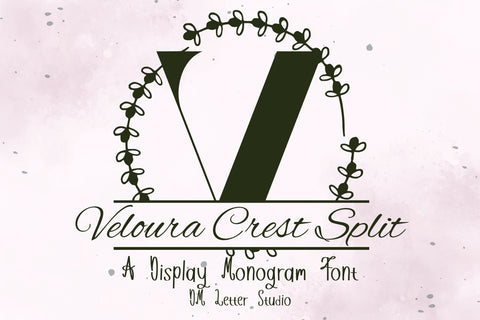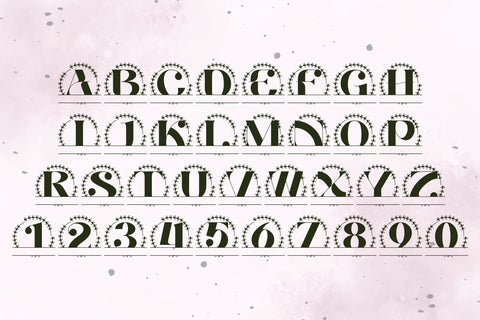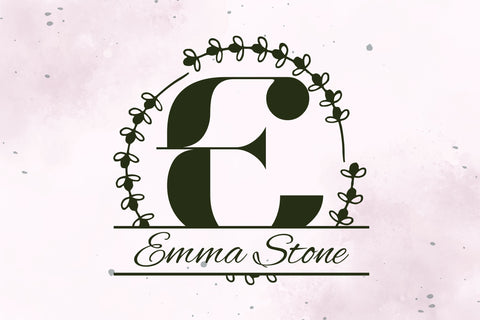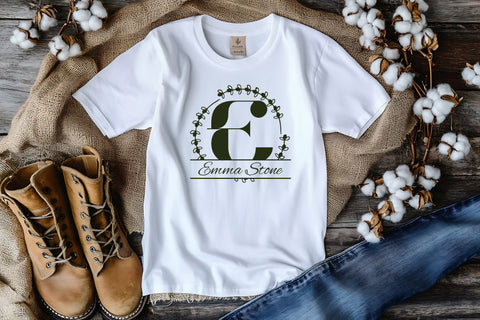
Veloura Crest Split Monogram – Elegant Split Serif Font with Crest-Style Flair
Veloura Crest Split Monogram is a luxurious serif font featuring a classic monogram style with a horizontal split and ornamental crest influence. Designed for creators who want to customize initials with names, dates, or short phrases, this typeface combines timeless elegance with personal flair. Whether you’re making wedding invitations, boutique logos, personalized gifts, or Cricut designs, Veloura Crest Split Monogram offers both sophistication and function in one elegant font.
The defining feature of this font is the horizontal break across each capital letter, allowing easy space for customization. The serif construction adds structure and refinement, while the crest-inspired flourishes lend a touch of regal beauty. Each letter stands strong on its own or can be paired beautifully with calligraphy fonts to create a balanced, high-end look.
With its split format, this font is especially effective in vinyl projects, engraving, signage, and any product that demands personalized touchpoints. The style suits wedding suites, premium branding, monogram logos, home decor, and any craft project where tradition meets design.
Veloura Crest Split Monogram includes a full set of uppercase letters with decorative crest detailing and clean spacing for easy text insertion. Whether you're using Canva, Adobe Illustrator, Cricut Design Space, or Silhouette Studio, the font installs easily and works across Mac and Windows.
✨ Features:
Serif uppercase monogram letters with elegant crest styling
Built-in split bar for personalized text or name inserts
Great for monograms, wedding branding, and high-end product designs
Includes A–Z uppercase, numerals, punctuation, and multilingual support
Crisp vector quality and clean spacing